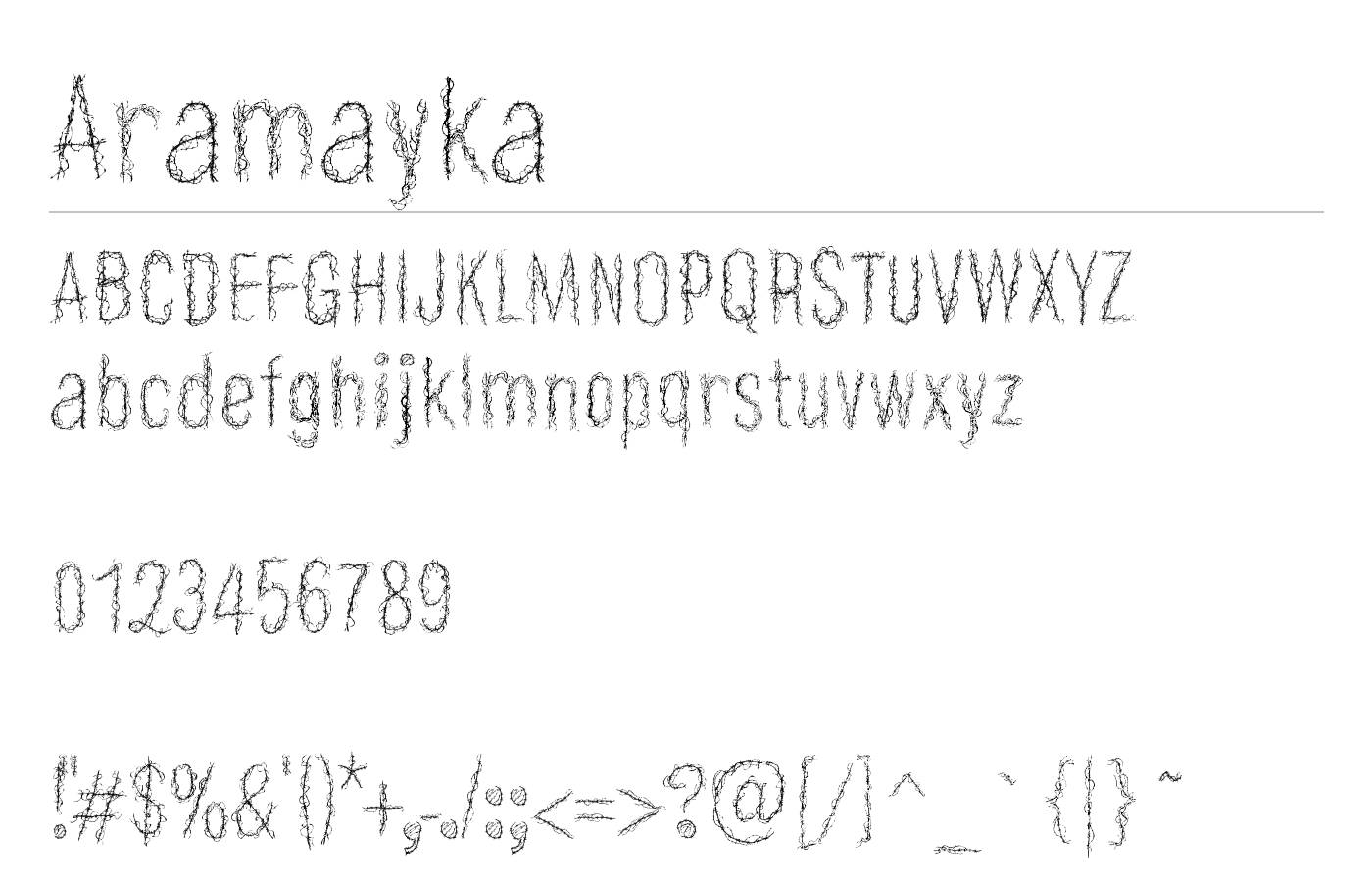
Aramayka is a unique, decorative sans serif font characterized by its intricate, tangled line work that gives it a hand-drawn, organic feel. Its light weight and delicate, sketch-like strokes create an airy yet textured appearance, making it ideal for artistic or creative projects that seek a whimsical or mysterious mood. Best suited for headlines, logos, or creative packaging, Aramayka adds a distinctive, edgy touch where a one-of-a-kind, handcrafted look is desired.
Aramayka Font
About Aramayka Font
| Font family | Aramayka Font |